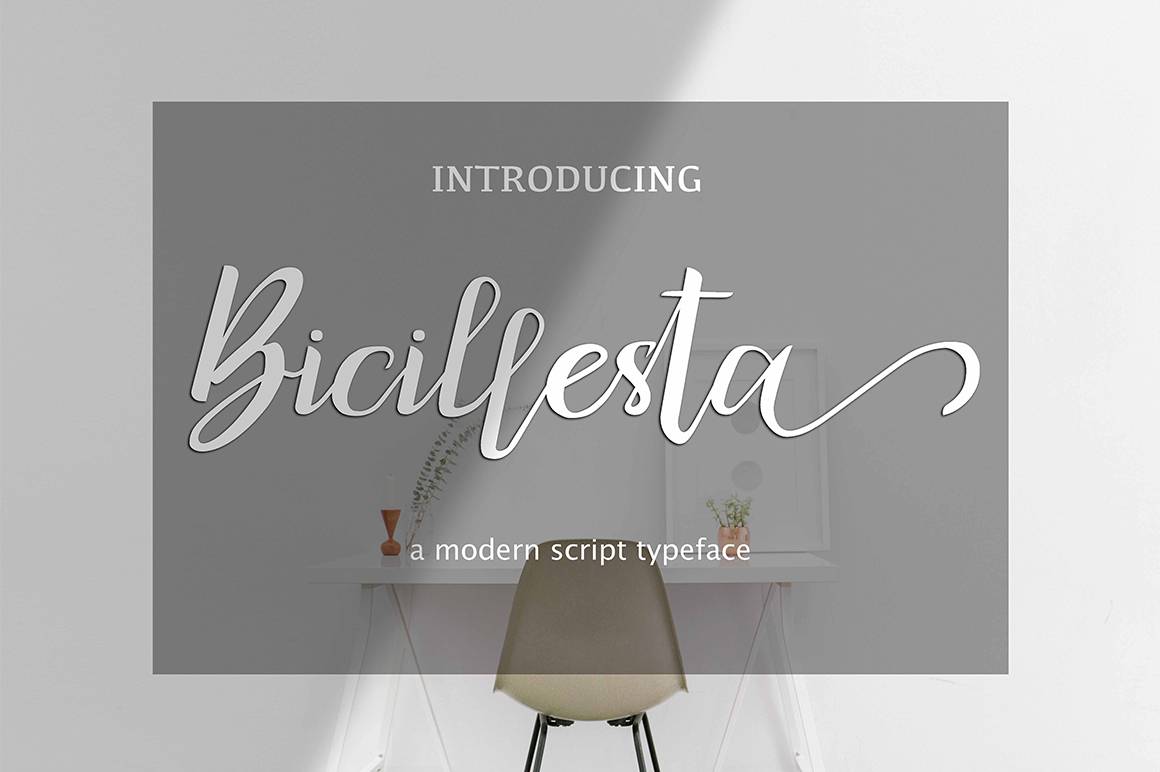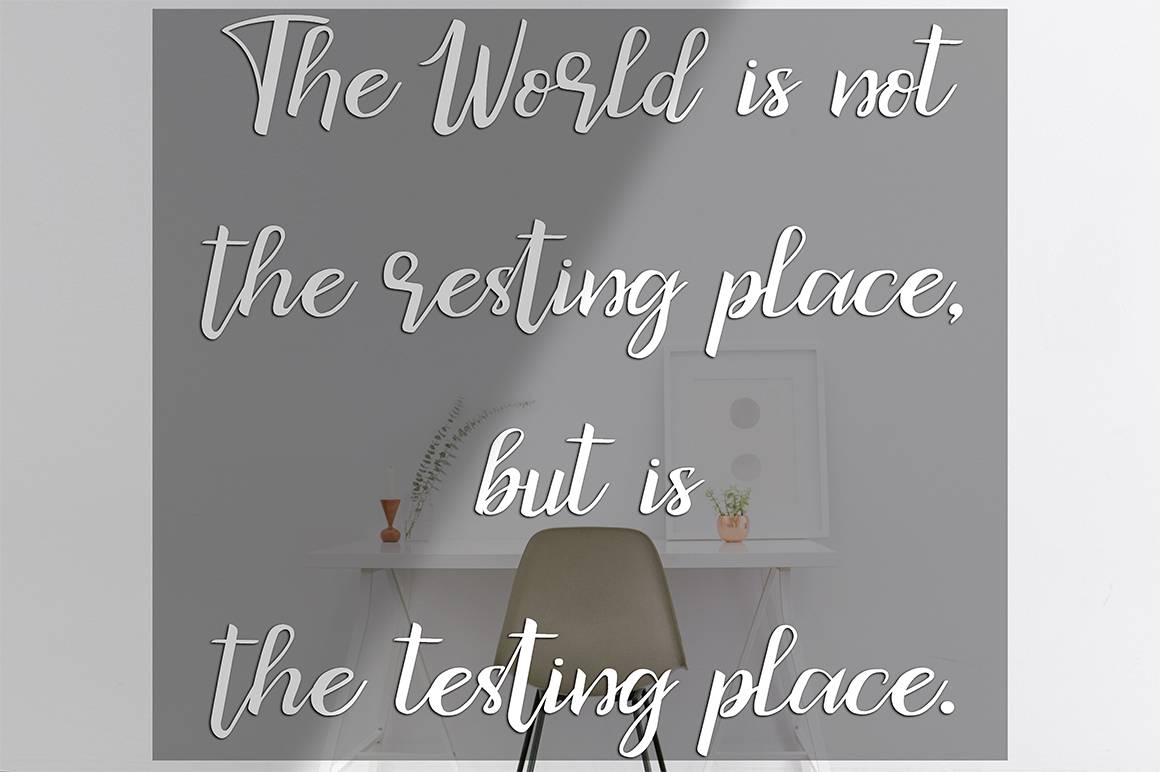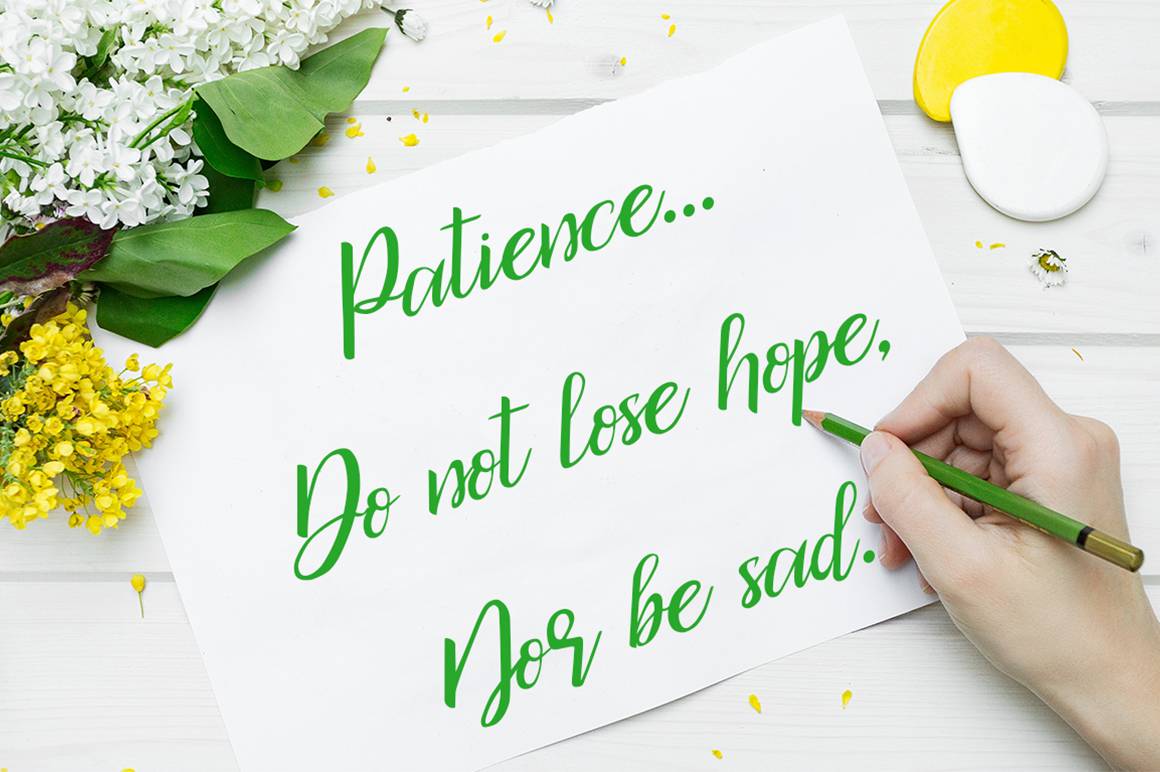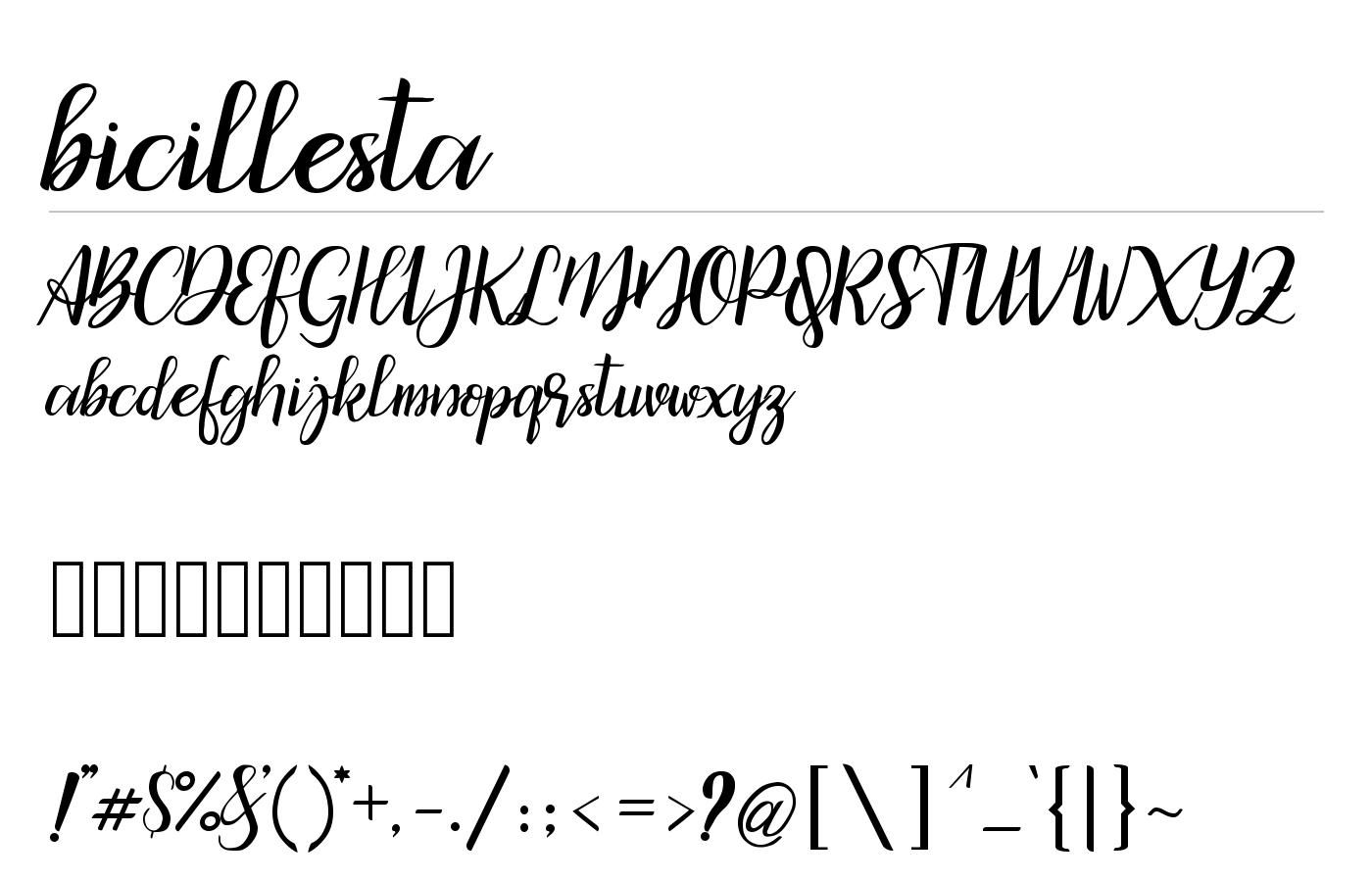
Bicillesta is an elegant script font with a smooth, flowing style that feels both modern and personable. Its light to medium weight and moderately tall x-height give it a graceful yet readable appearance, making it ideal for branding, invitations, and stylish headlines where a touch of warmth and sophistication is desired. This font’s delicate curves and playful letterforms convey a friendly, chic personality perfect for creative and fashion-forward designs.
Bicillesta Font
About Bicillesta Font